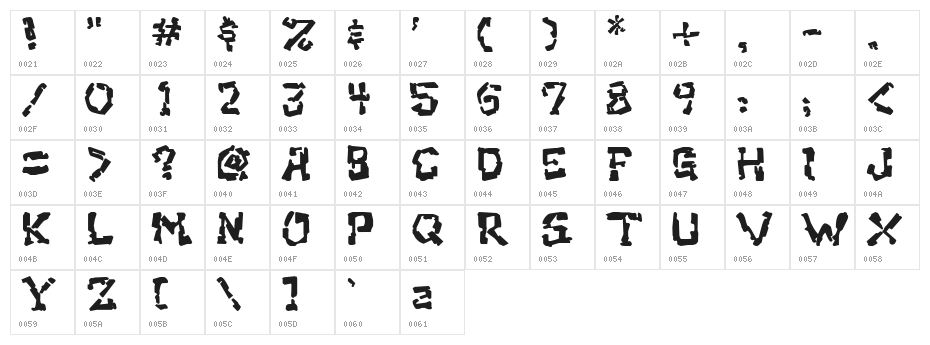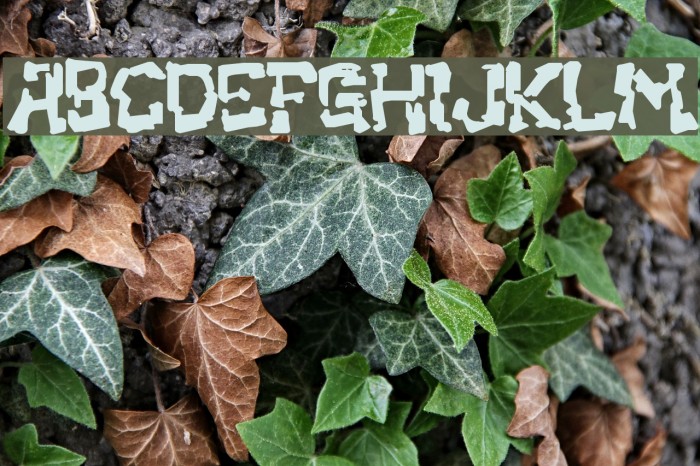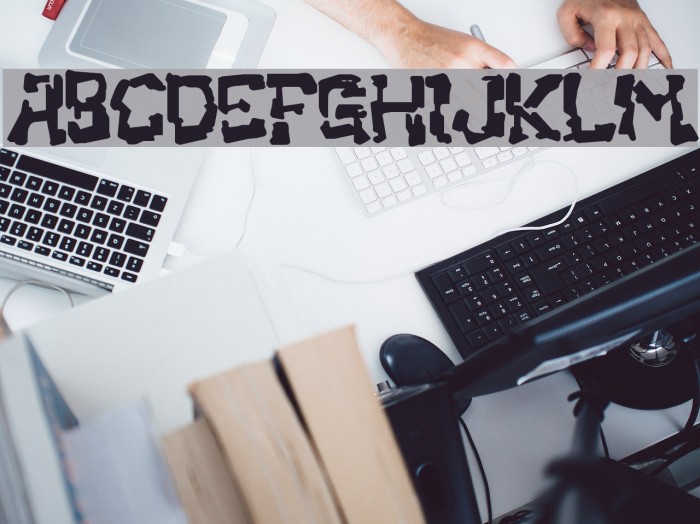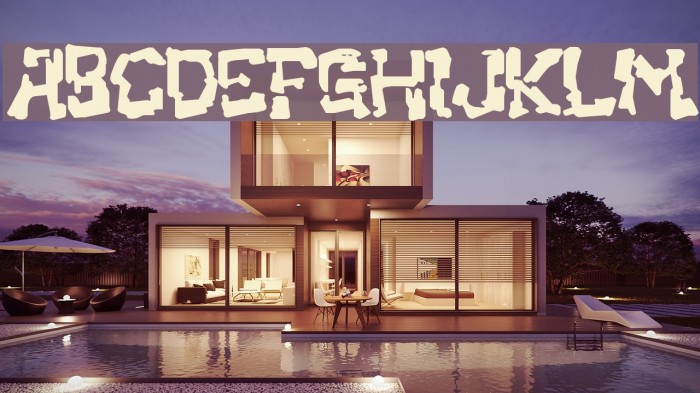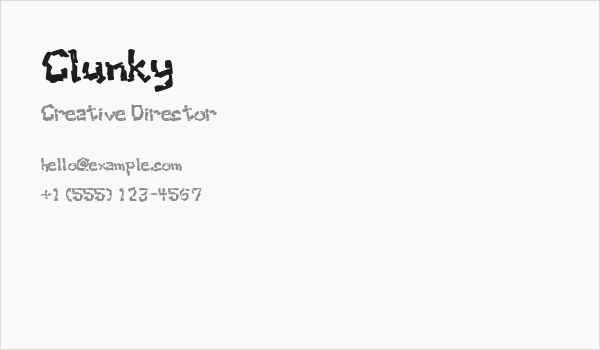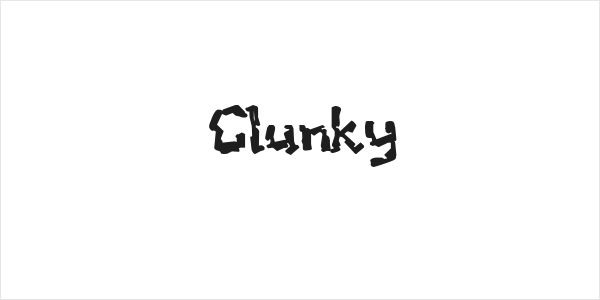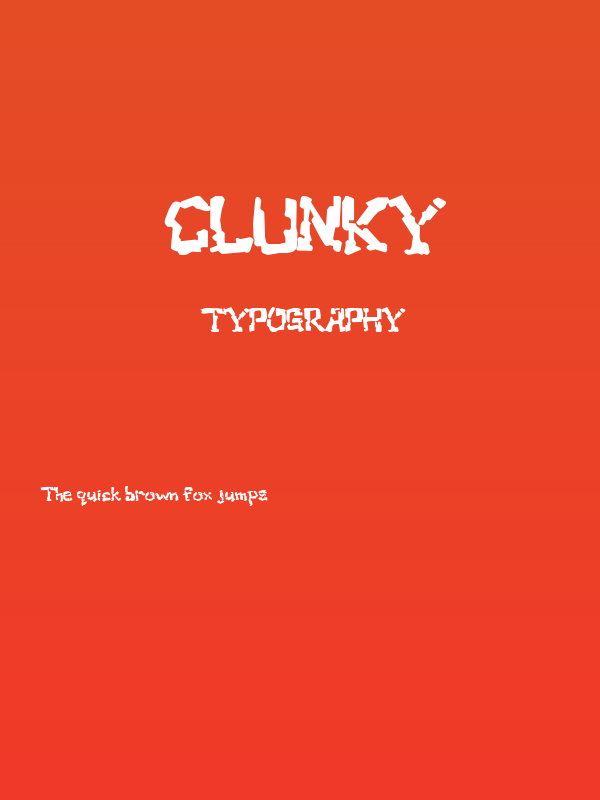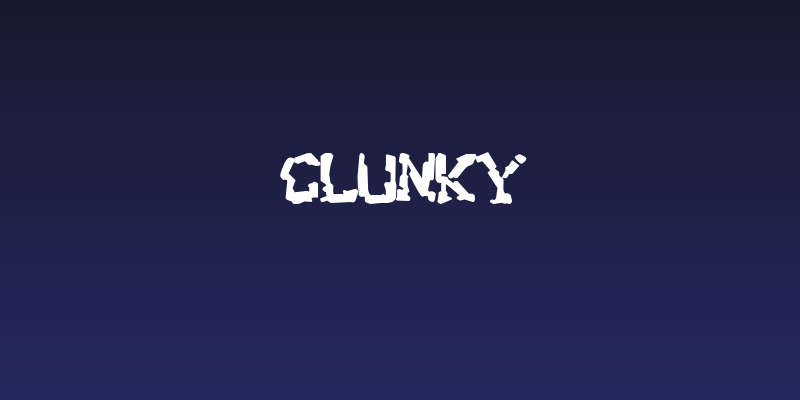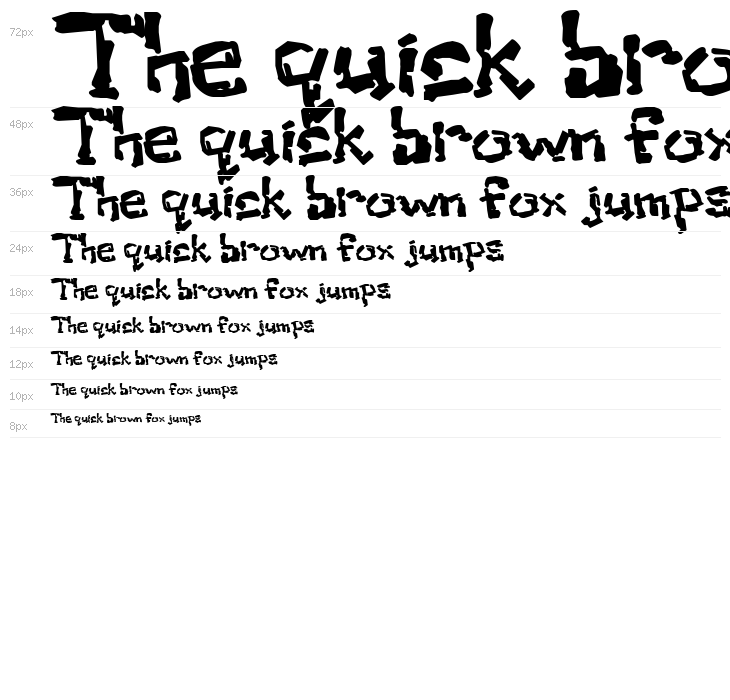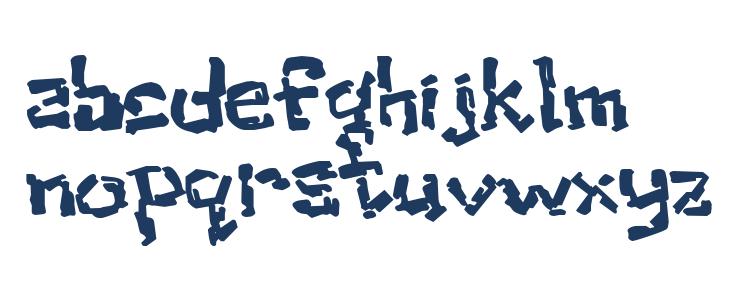
Clunky Font
This font features a rugged and blocky design, characterized by its uneven and jagged edges that give it a distinctly hand-crafted appearance. The letters are bold and irregular, with a playful yet chaotic style that suggests a sense of movement and energy. The uppercase and lowercase letters maintain a consistent aesthetic, with the lowercase letters being slightly more compact. Numbers and special characters follow the same design principles, ensuring a cohesive look across all glyphs. This font's unique style makes it stand out, offering a visually striking option for creative projects.